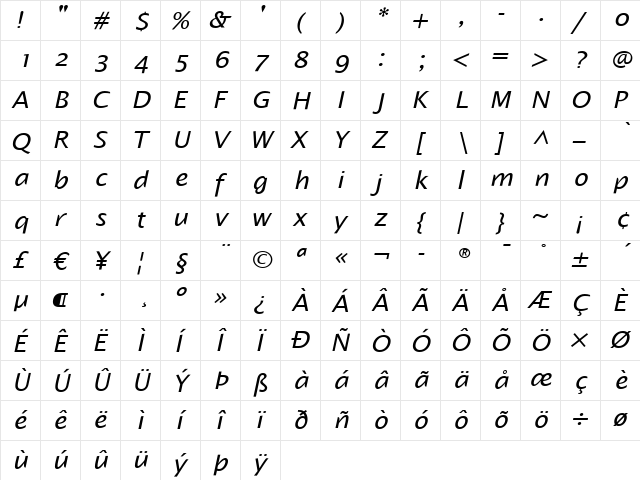
Alphabet2 Italic
Design Context for Alphabet2 Typeface
Alphabet2 offers clean, dependable letterforms without strong stylistic allegiance, making it a practical choice for designers who need flexibility. The slanted form adds forward momentum and visual energy.
Pro Tip: Try Alphabet2 for annotation and caption copy alongside an upright companion — the contrast in angle creates a dynamic but ordered typographic system.